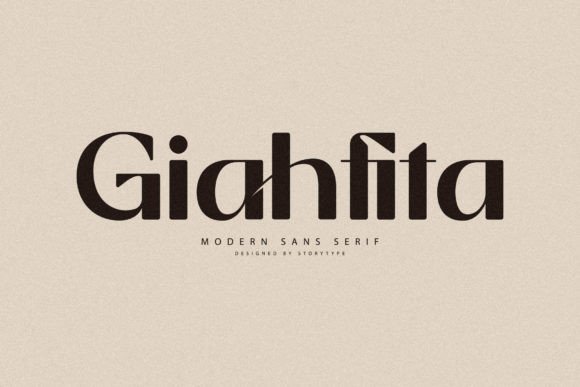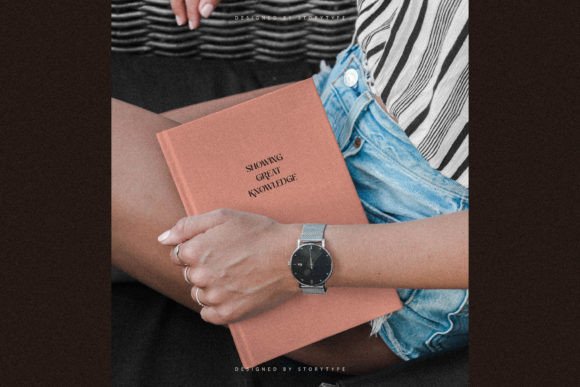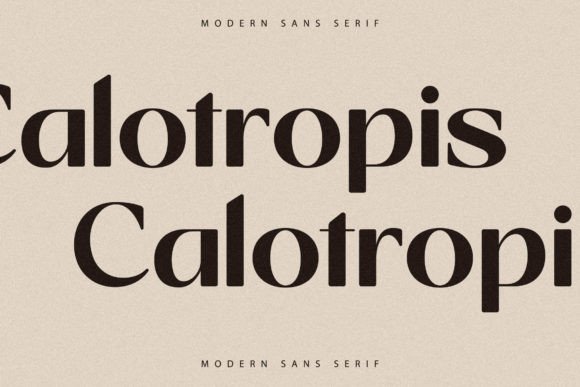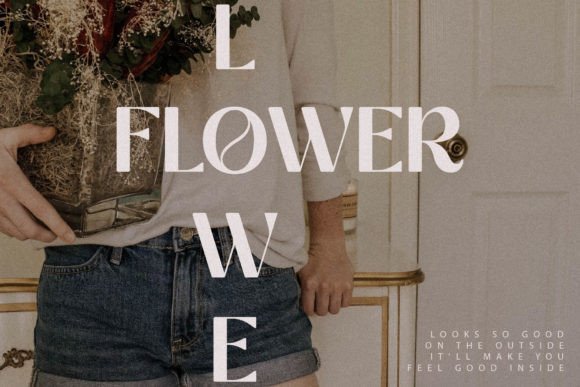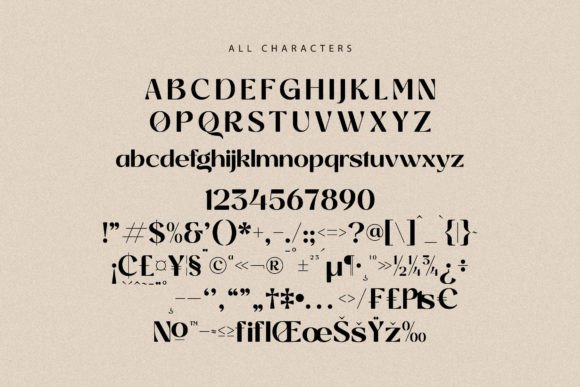
Giahfita: A Modern and Classic Slab Serif Font
Giahfita is a modern and classic slab serif font that combines unique style with fancy elegance. This versatile typeface is perfect for luxury applications, from fashion brands to movie titles.
Key Features of Giahfita
- Modern Design: Offers contemporary appeal with classic elements.
- Unique Style: Features distinctive and fancy letterforms.
- Elegant Character: Brings luxury appeal to designs.
- Versatile Application: Adapts well to numerous design contexts.
Best Uses for Giahfita
Thanks to its elegant characteristics, Giahfita works especially well for:
- Luxury logos
- Book titles
- Movie titles
- Fashion brands
- Magazine designs
- Clothing labels
- Elegant quotes
When using Giahfita in your designs, keep these tips in mind:
- Try it for headlines or display text to showcase its fancy style.
- Use different sizes to highlight its classic features.
- Let its unique character enhance luxury projects.
- Take advantage of its versatility for elegant applications.
To sum up, Giahfita is an excellent choice for designers seeking a modern and classic slab serif font with a luxury appeal. Its versatility makes it perfect for various elegant projects. Whether you’re creating fashion brands, designing book titles, or developing luxury logos, Giahfita offers the perfect blend of contemporary style and timeless sophistication.
Furthermore, Giahfita’s distinctive design allows it to shine in contexts where both modernity and elegance are key. For instance, from magazine layouts to clothing labels, this font can elevate your projects with its refined style. Also, its fancy yet readable appearance works particularly well in designs that aim to make a sophisticated impact.
In conclusion, Giahfita truly captures the essence of modern luxury in slab serif typography. Its versatility across different applications shows how well it can serve various creative needs. Therefore, for those wanting to add a touch of elegant sophistication to their work, Giahfita can enhance any design with its unique style. Ultimately, it’s perfect for designers aiming to make a fancy, modern impact across luxury-oriented projects.